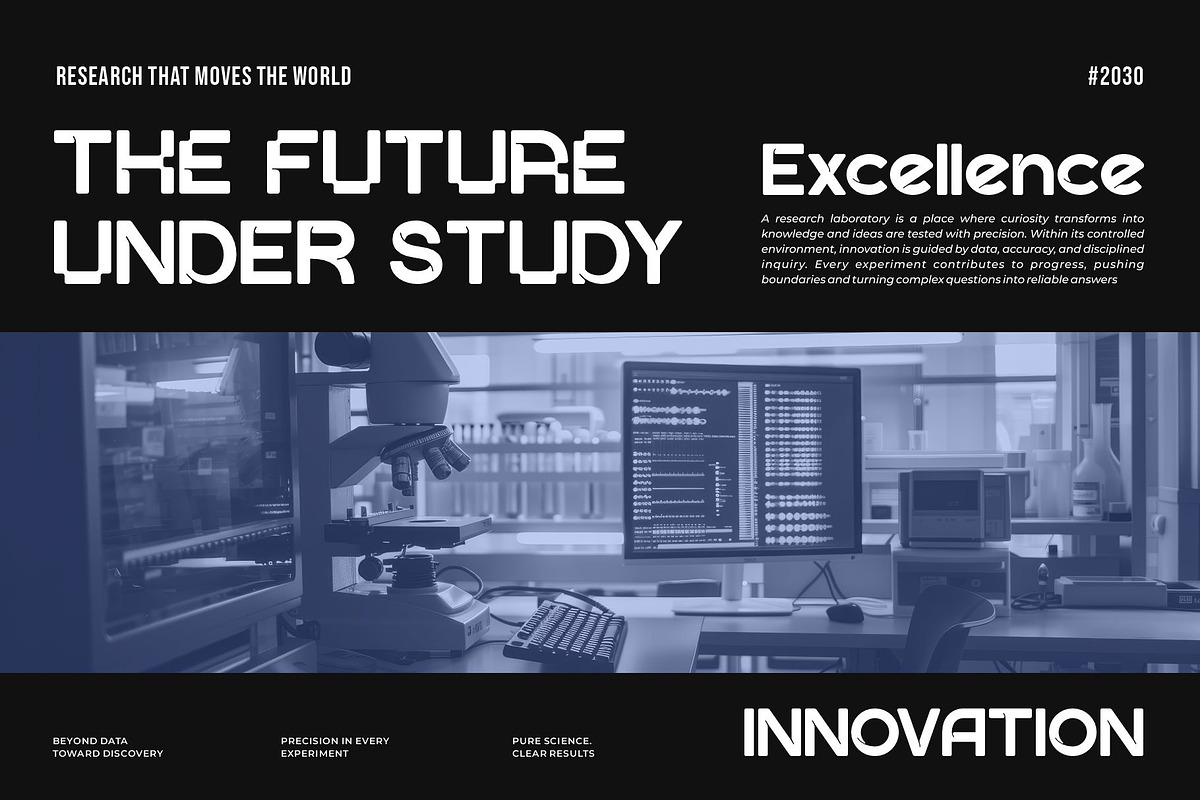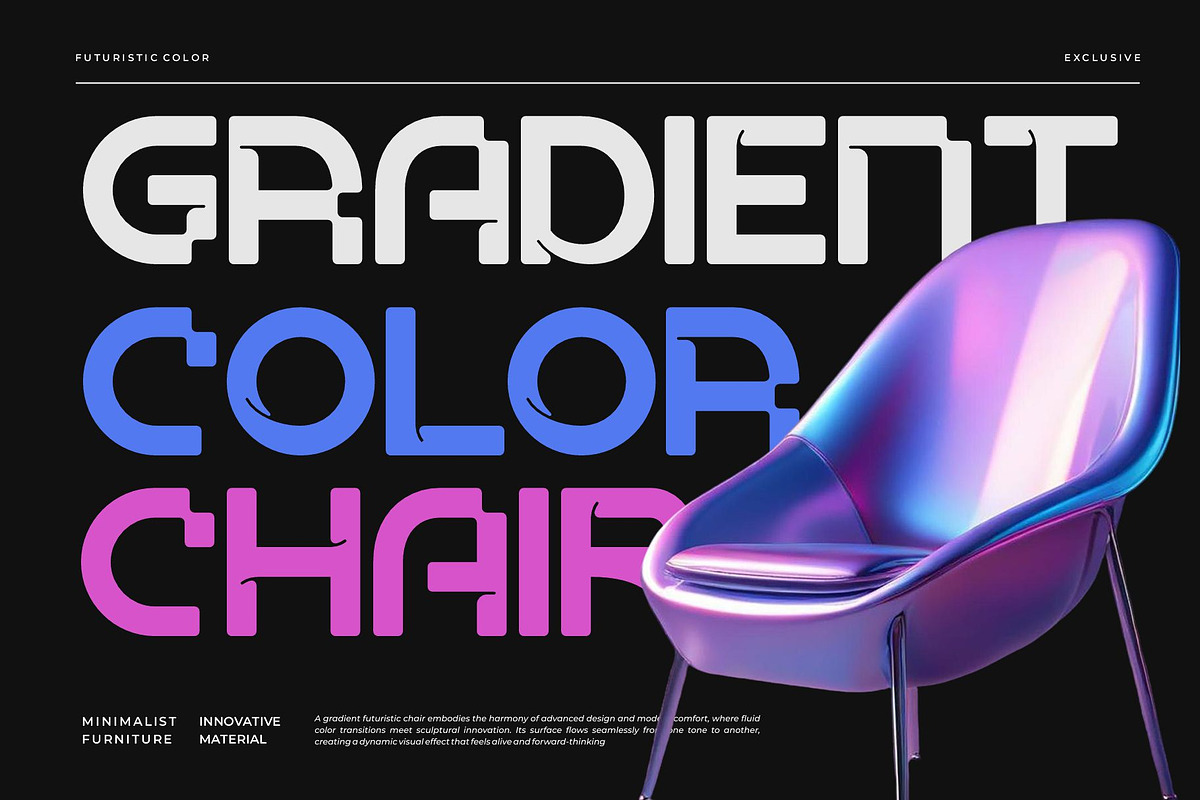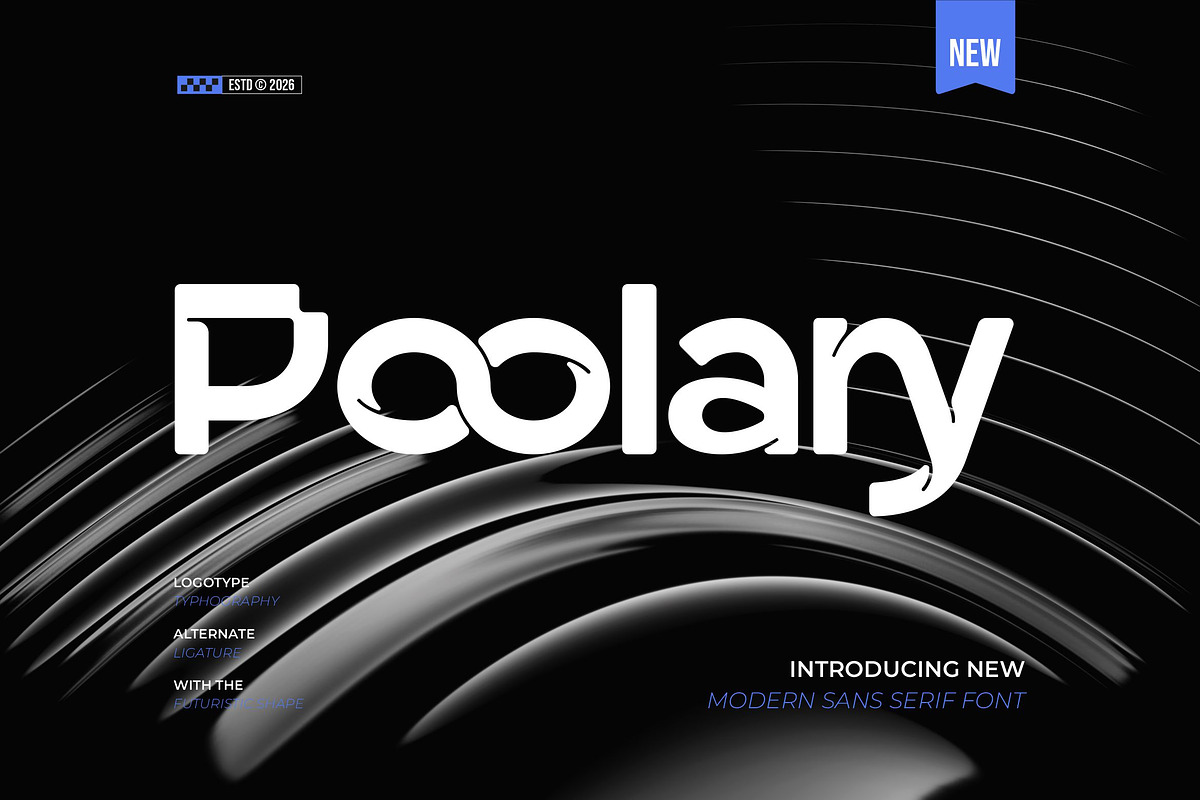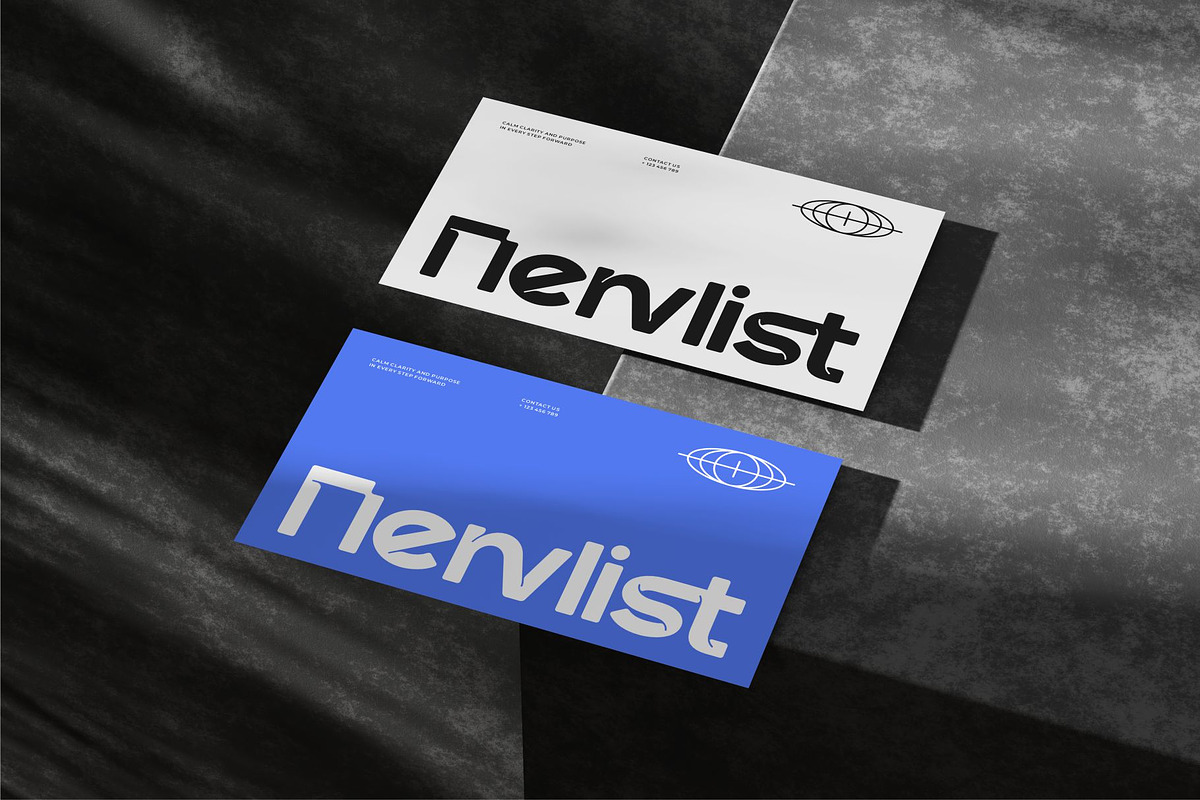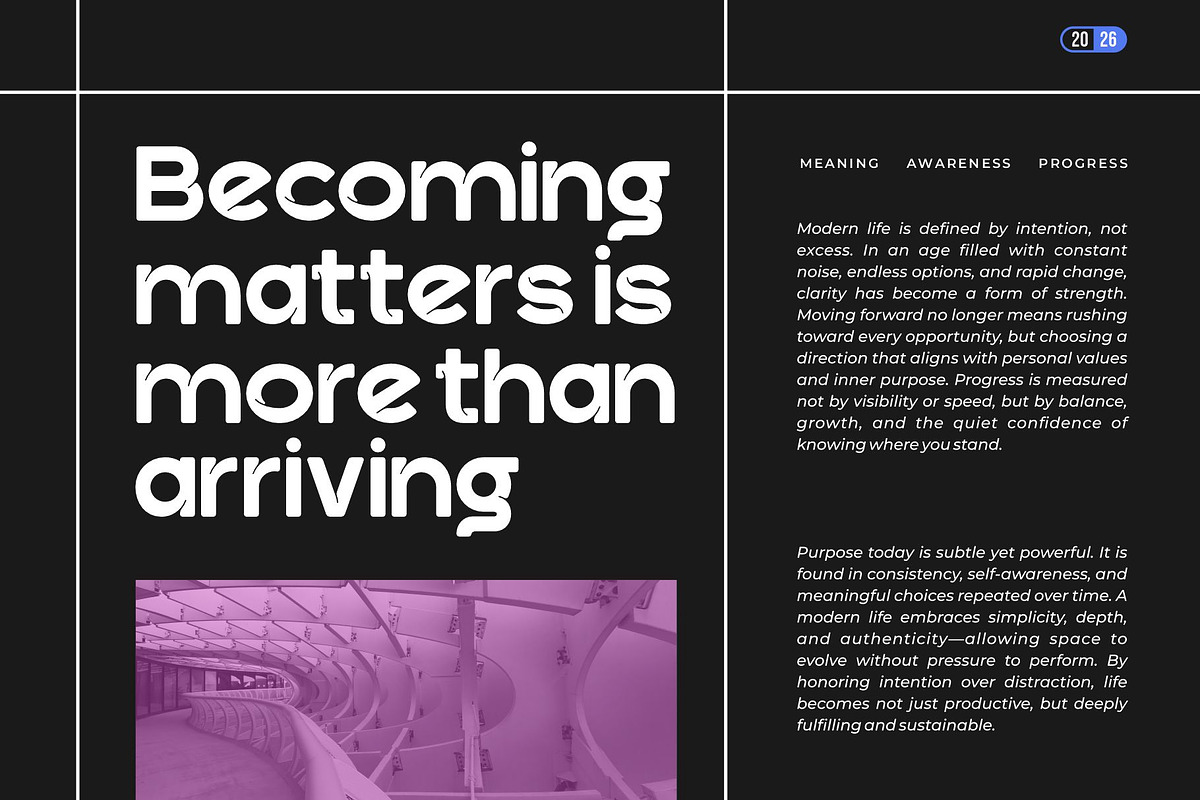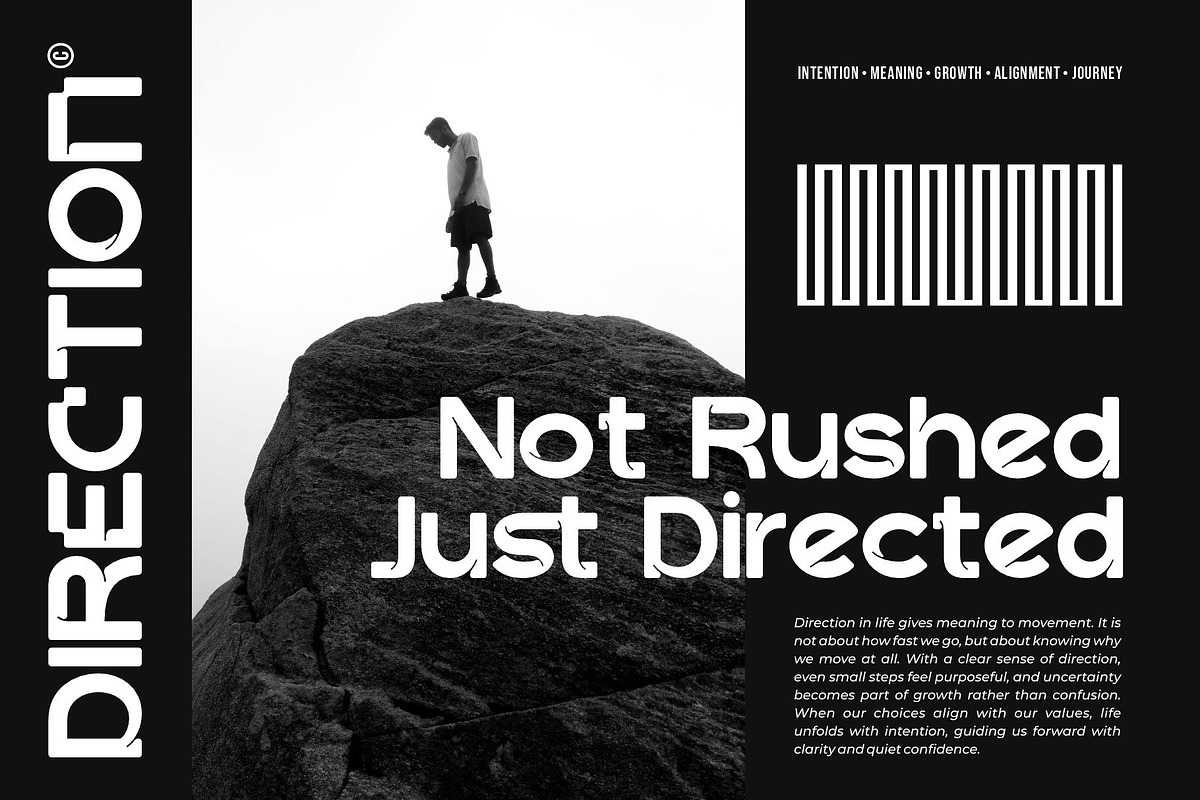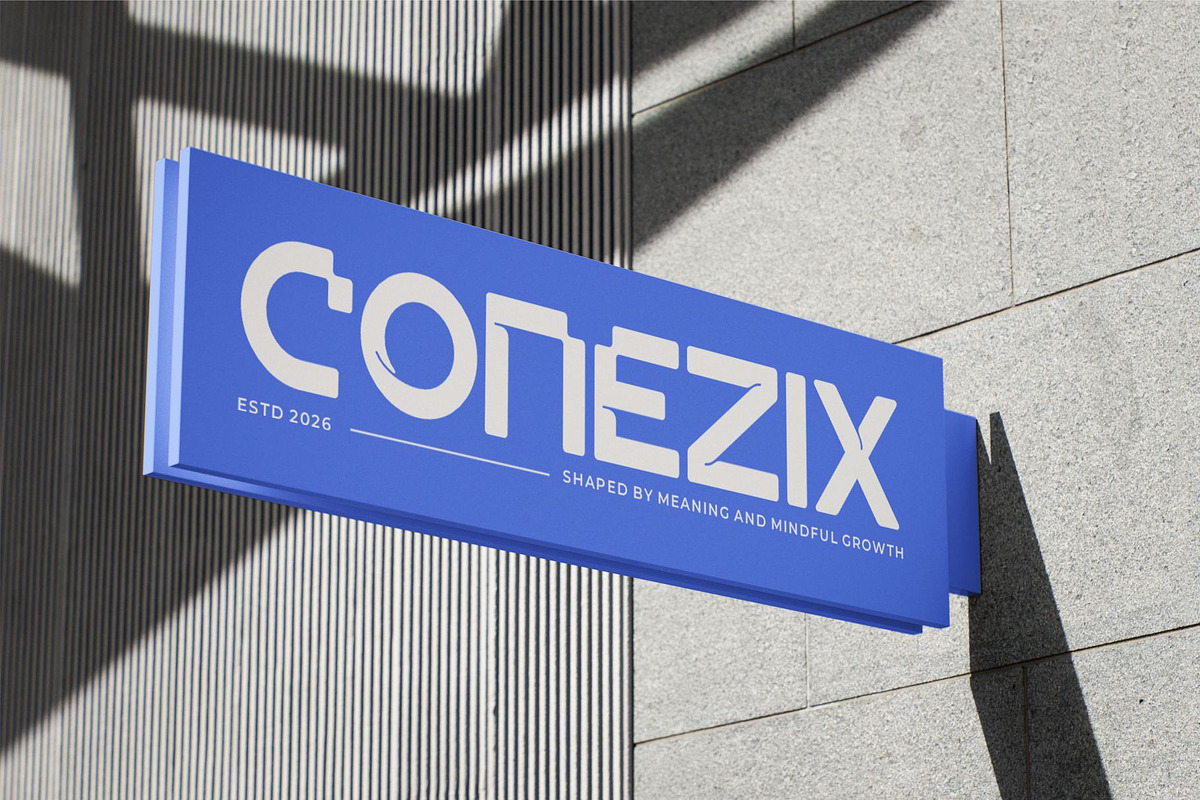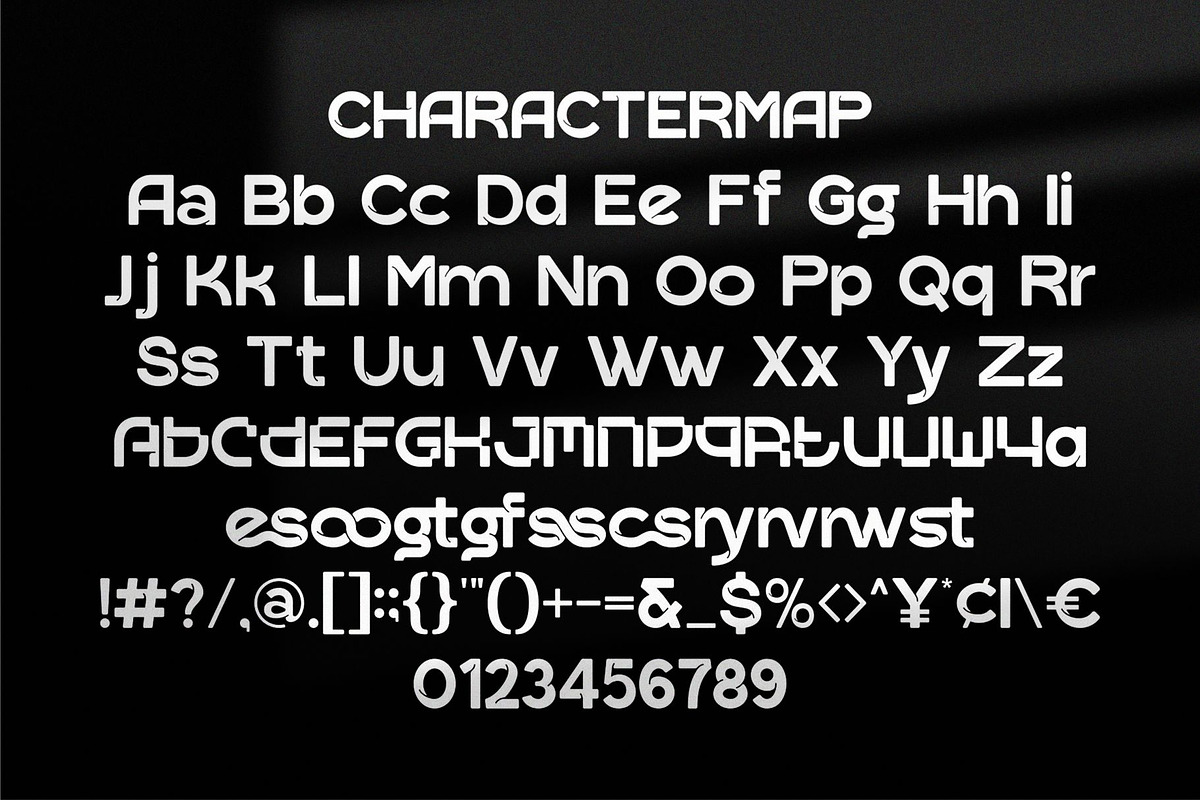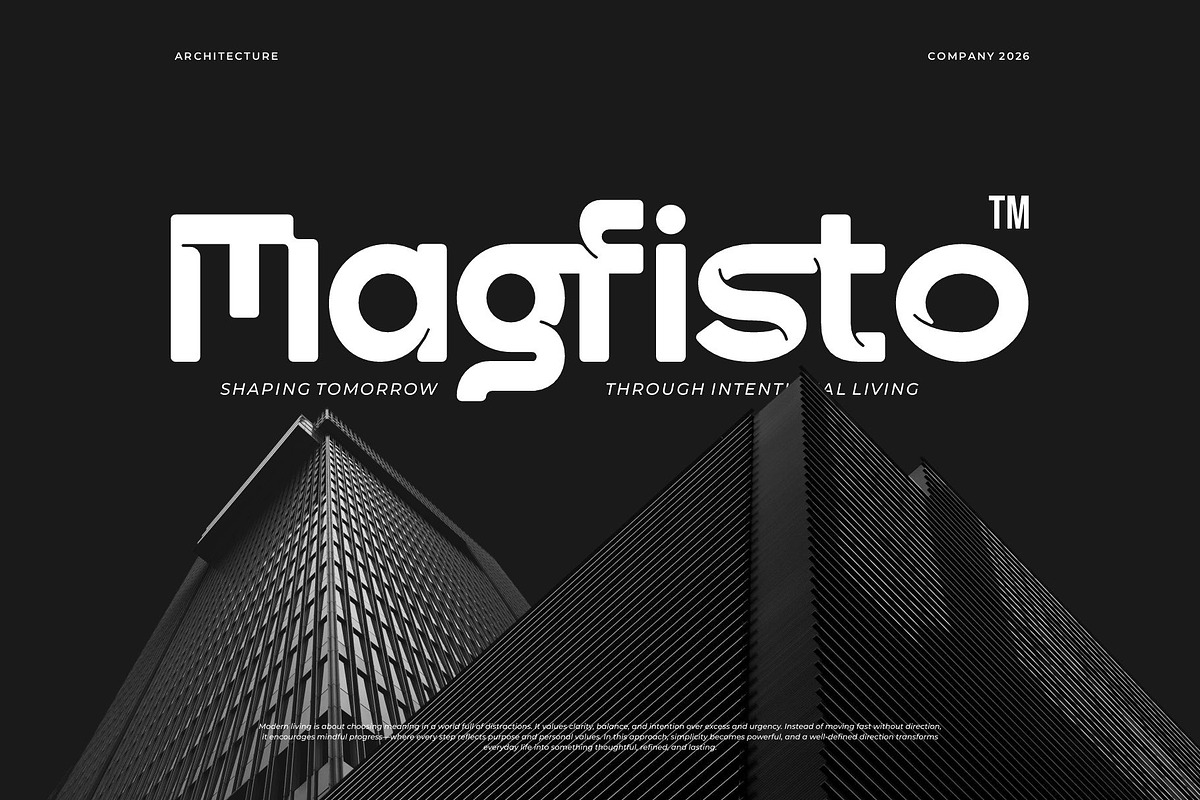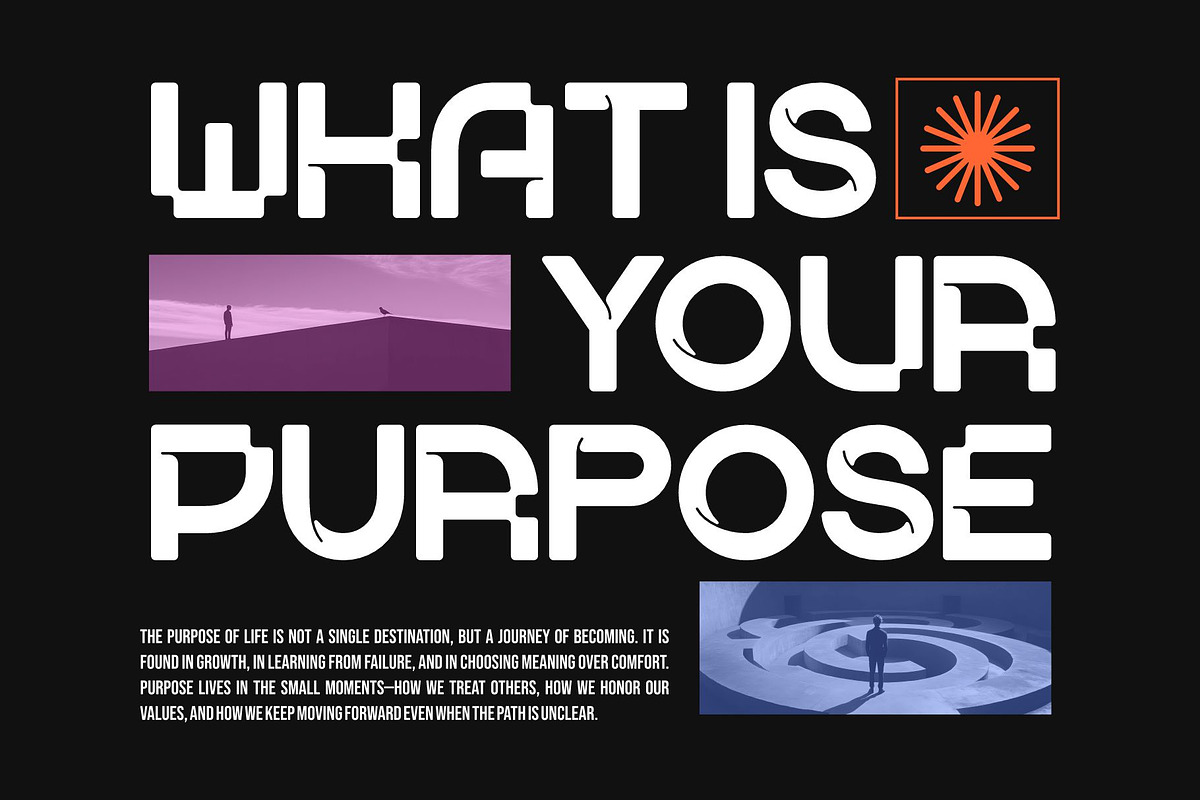
Poolary || Modern Futuristic Display
Poolary display is a modern and futuristic font type for all branding and logo designs. This modern and futuristic display font has a beautiful character. This font is suitable for invitation card designs, cool logos, movie titles, movie names, business cards, book titles, brand names, and various other designs. Poolary display is a smooth serif font that exudes sophistication and the moment. Its stylish ligatures make this font a perfect partner for any project.